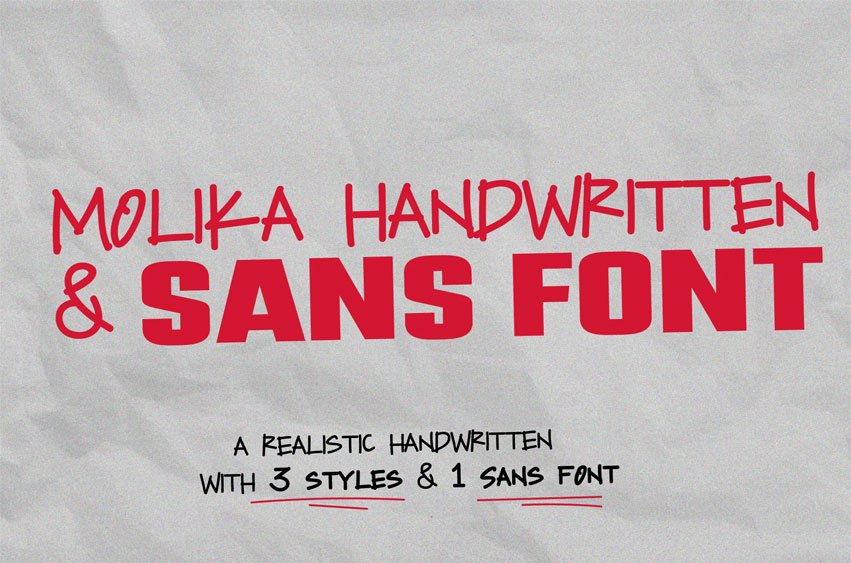
Molika Font is a versatile font duo featuring Handwritten and Sans Serif styles — designed to balance casual charm with modern elegance. With a firm character and smooth curves, Molika is the perfect choice for greeting cards, illustrations, branding, book covers, social media posts, packaging, posters, and so much more.
Handwritten Font: Comes in 3 weights — Light, Regular, and Bold. Each style captures the natural flow of handwriting with subtle variations, making your text look authentic, expressive, and stylish.
Sans Serif Font: A clean and strong Black weight, designed to pair perfectly with the handwritten styles. Ideal for bold titles, logos, or modern layouts that need clarity and impact.
- All-uppercase handwritten styles with smooth alternates
- Elegant pairing between handwritten + sans serif
Summary
Molika offers the freedom to mix and match between its handwritten warmth and bold sans serif presence. Whether you want a playful yet elegant handwritten look or a clean, modern sans serif for contrast, this duo has everything you need.